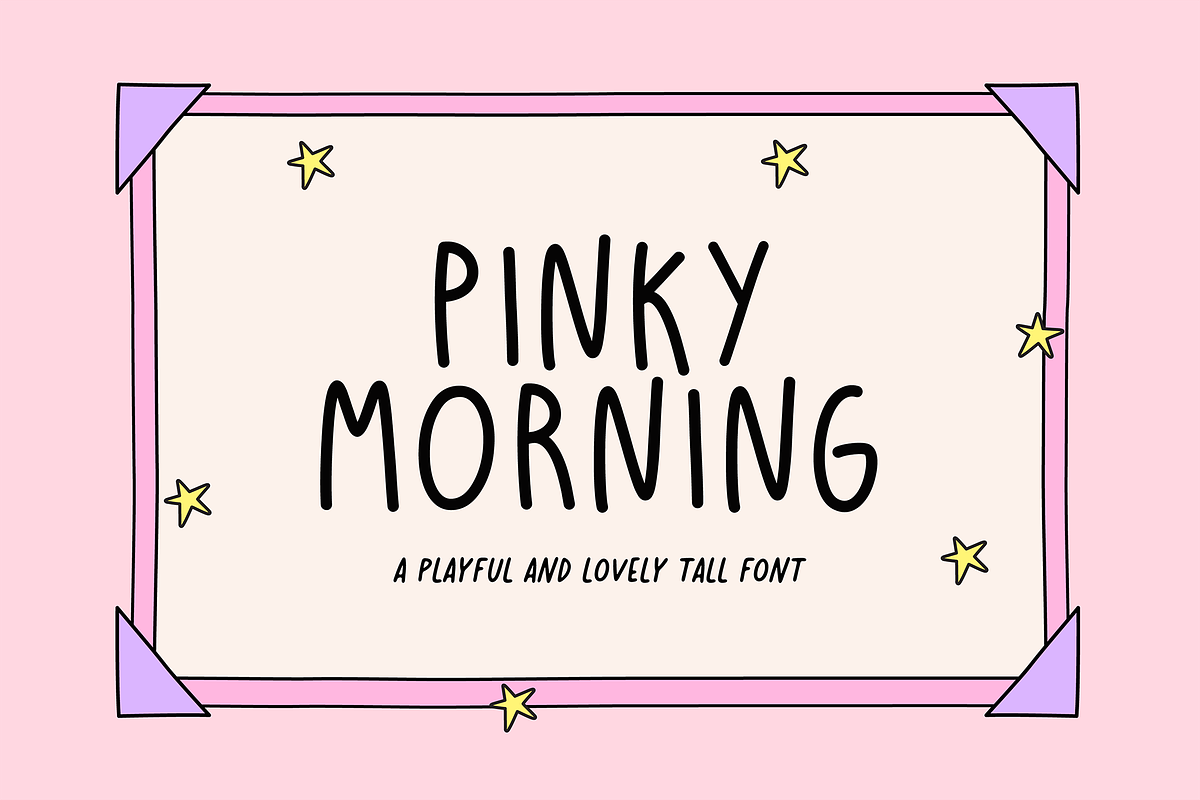
PINKY MORNING | Cool Tall Font Free Download
Pinky Morning Cool Tall Font Free Download
Pinky Morning Cool Tall Font Free Download is a stylish and modern typeface with a slim, vertical structure that gives your designs a sleek, trendy edge. With its tall letterforms and playful charm, this font is perfect for fashion branding, social media quotes, posters, logos, packaging, and editorial headlines.
Its cool and casual vibe makes it ideal for both minimal layouts and bold statement pieces. Whether you're crafting a dreamy lifestyle brand or adding personality to digital content, Pinky Morning delivers fresh, eye-catching typography with attitude.
The font’s clean lines and legible style make it super versatile and perfect for both print and screen.